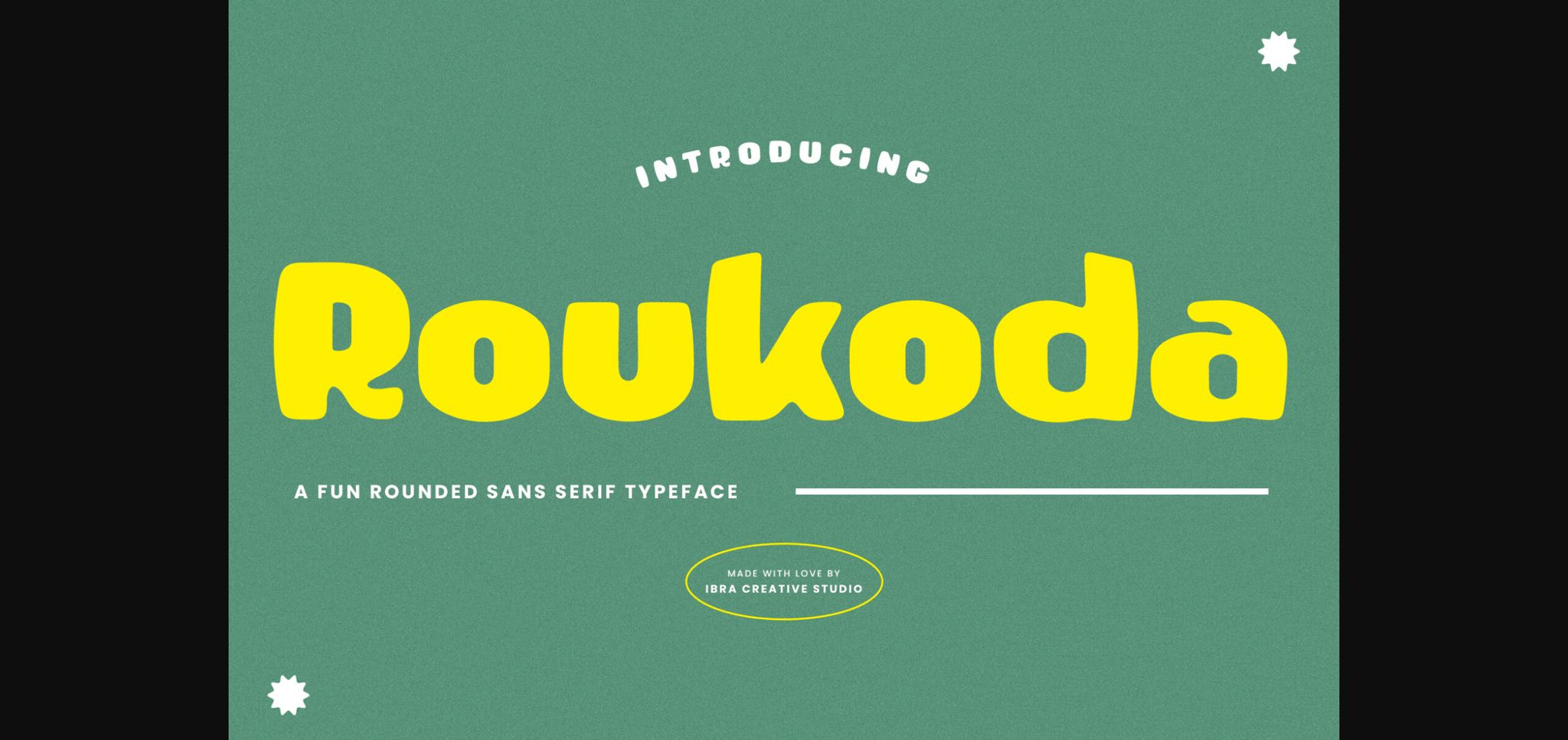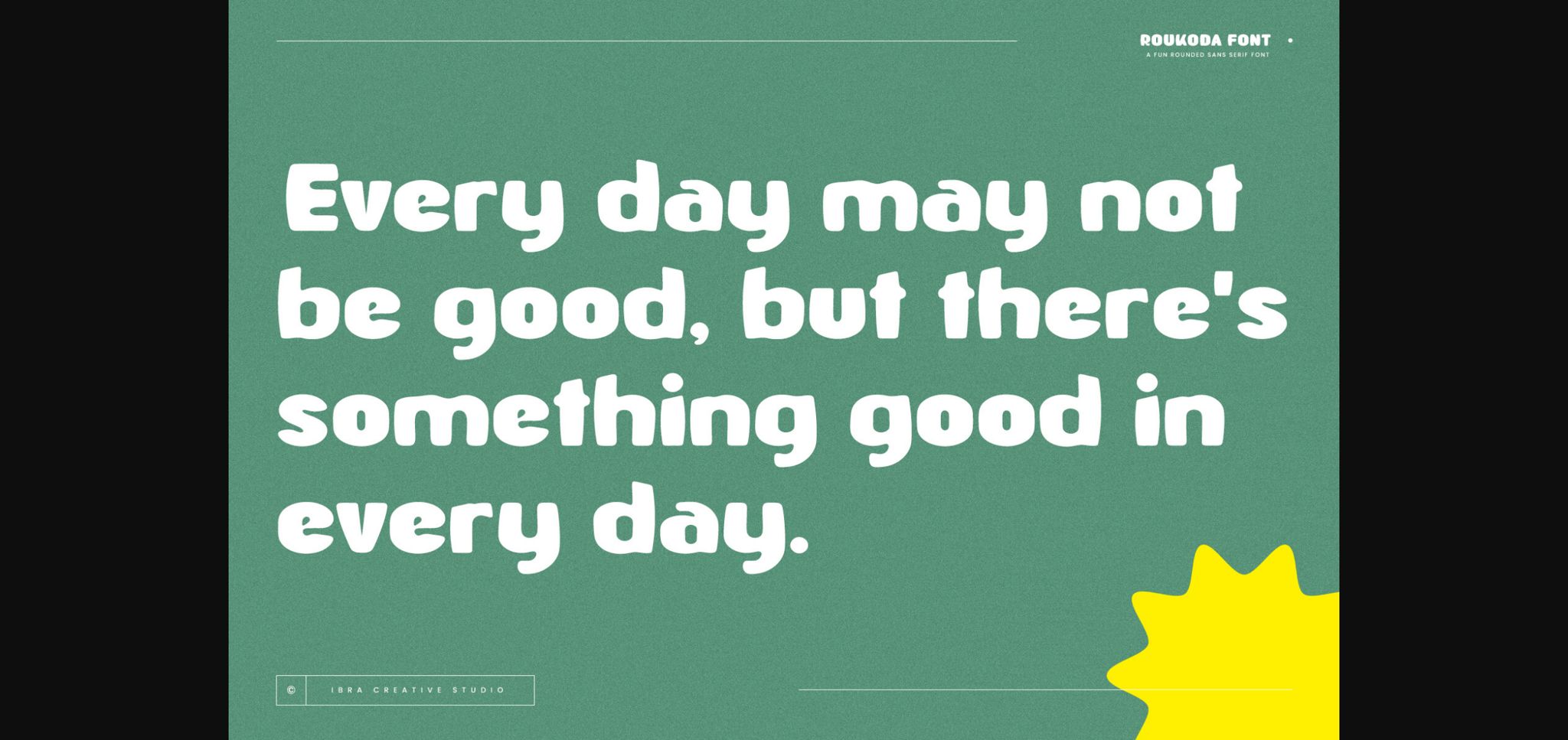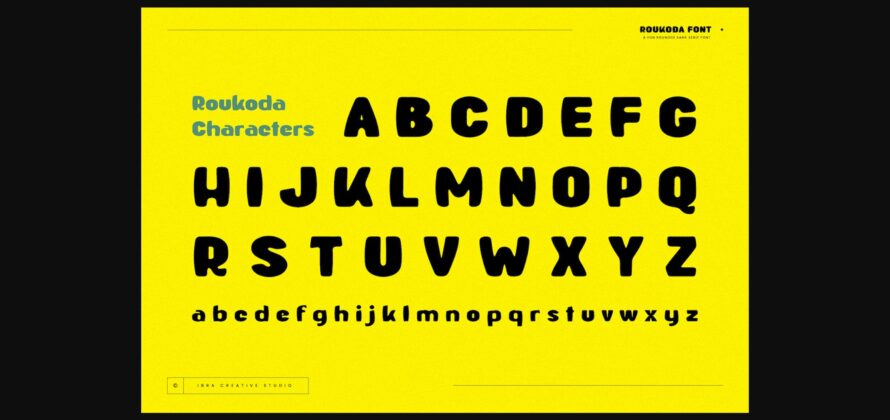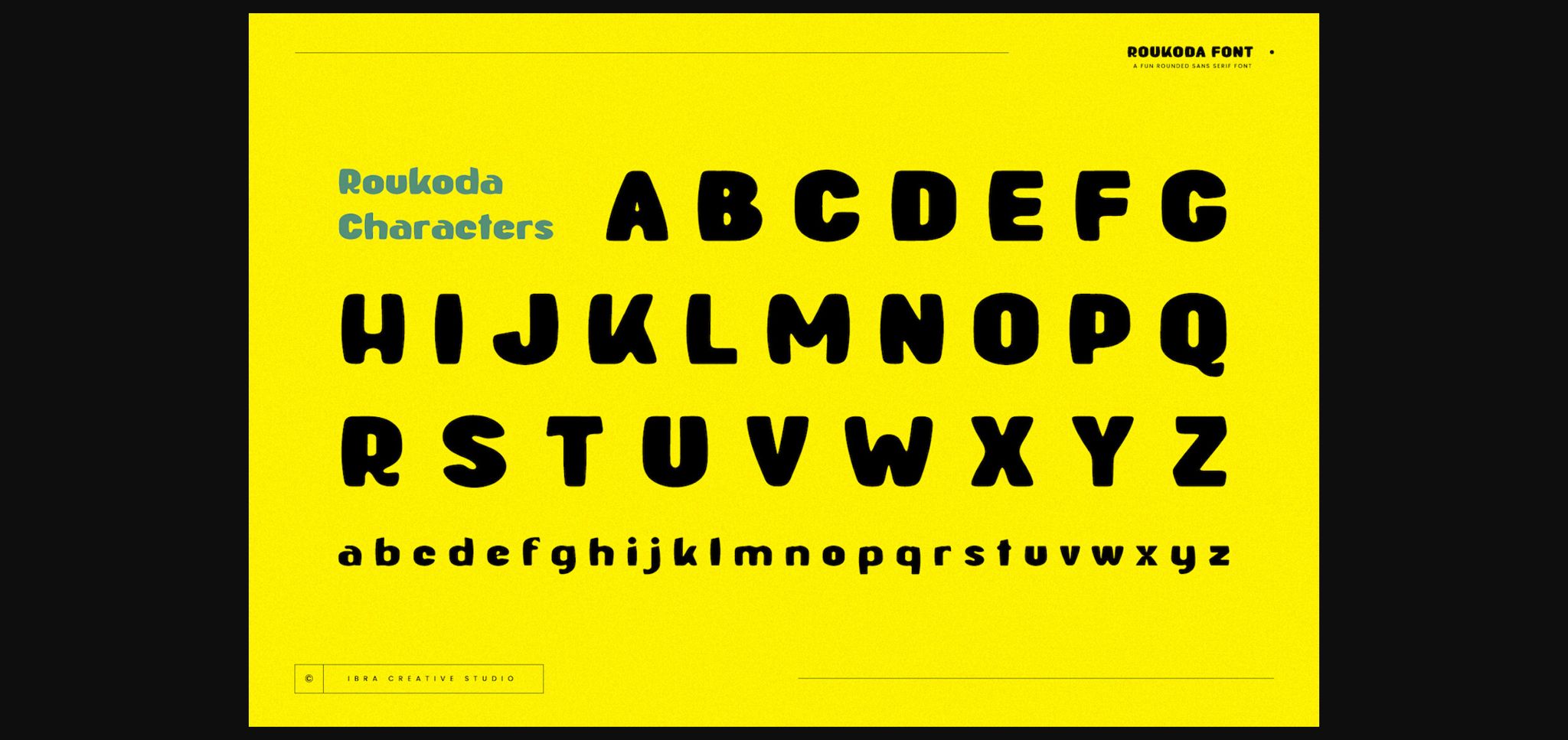
About Roukoda Font
Roukoda, a fun rounded sans-serif typeface, radiates a playful and friendly aura with its charmingly curved letterforms. The delightful roundness of each character adds a touch of whimsy, making Roukoda a perfect choice for designs that seek to convey a sense of approachability and lightheartedness. Its balanced and clean appearance ensures readability, while the subtle round edges infuse a sense of warmth and character.